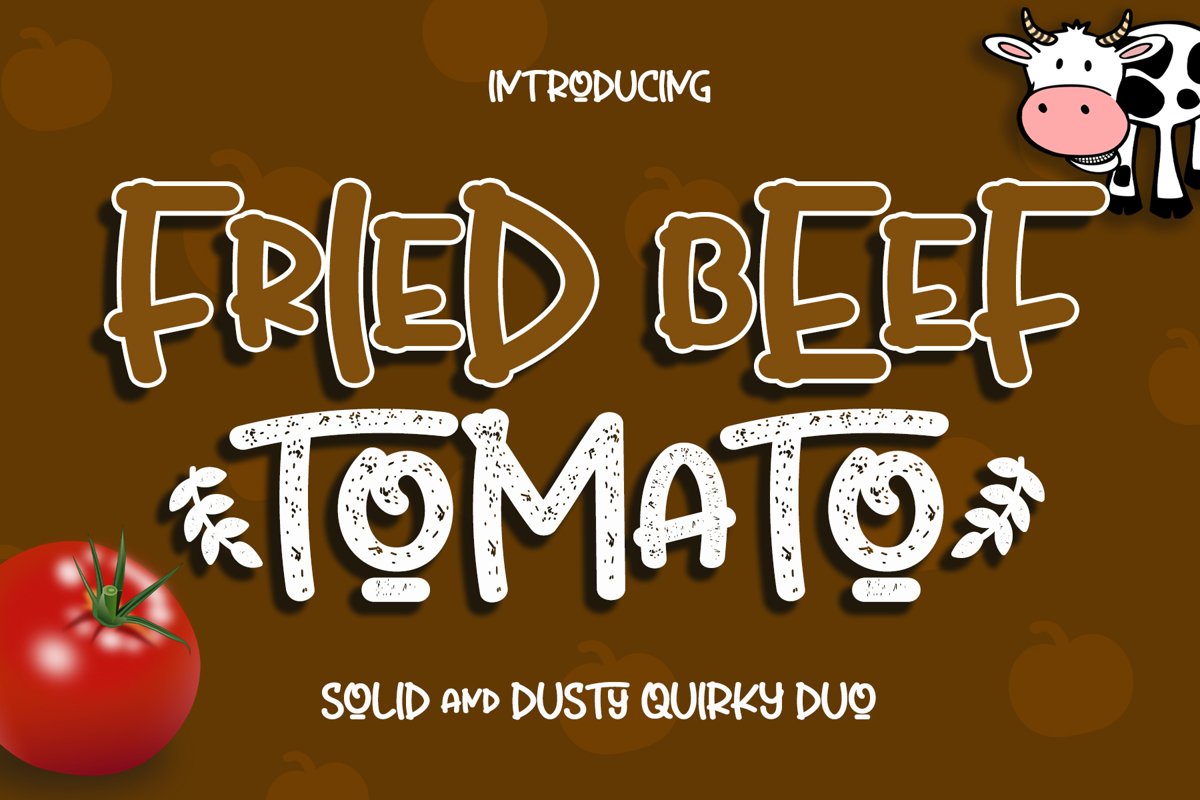
Fried Beef Tomato is cute and quirky font. It will add the playful vibe and cuteness in your design.
Fried Beef Tomato has solid and dusty styles which is very suitable for mockup, social media quotes, and other cheerful design.